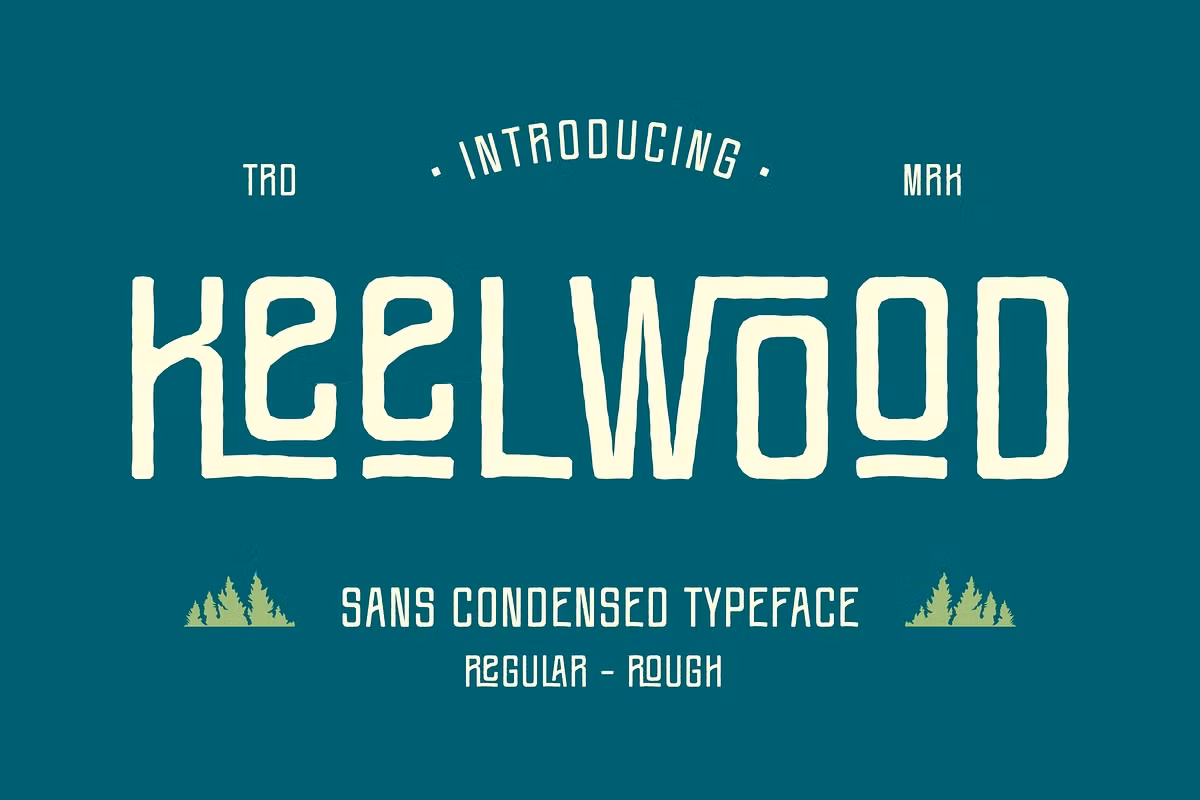
Keel Wood - Sans Condensed Font Free Download
Modern, sleek, and versatile, Keel Wood - Sans Condensed Font Free Download is a sharp, condensed sans-serif typeface designed to bring a clean, bold look to your designs. Perfect for logos, posters, website headers, packaging, and branding, this font delivers strong, impactful text in a compact format that works great for both print and digital projects.
With its condensed structure and smooth letterforms, Keel Wood adds a touch of modern sophistication while maintaining excellent legibility. Whether you're working on a minimalist design or need something to stand out in a crowded layout, this font’s sleek lines and condensed form make it an ideal choice.